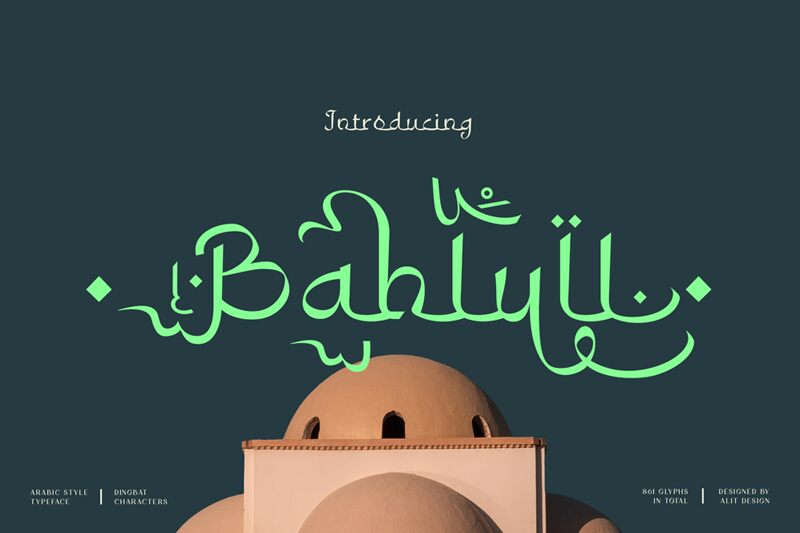
Bahlull Regular
Bahlull font by Alit Design is a free arabic‑inspired calligraphic font. Its defining feature is the flowing, Latin forms shaped by Arabic calligraphic rhythm—tapered strokes, teardrop terminals, and looping ascenders that glide along a gently dancing baseline. The contrast feels inky and hand‑drawn, giving headlines a supple, ceremonial presence without turning fussy.
Using Bahlull, you’ll bring expressive warmth to boutique logos, restaurant menus, packaging, event posters, invitations, and social media graphics. The generous curves read best at larger sizes, where the swashes breathe and spacing settles. For balance, pair this free font with a clean geometric sans and keep tracking snug to let its strokes interlock.